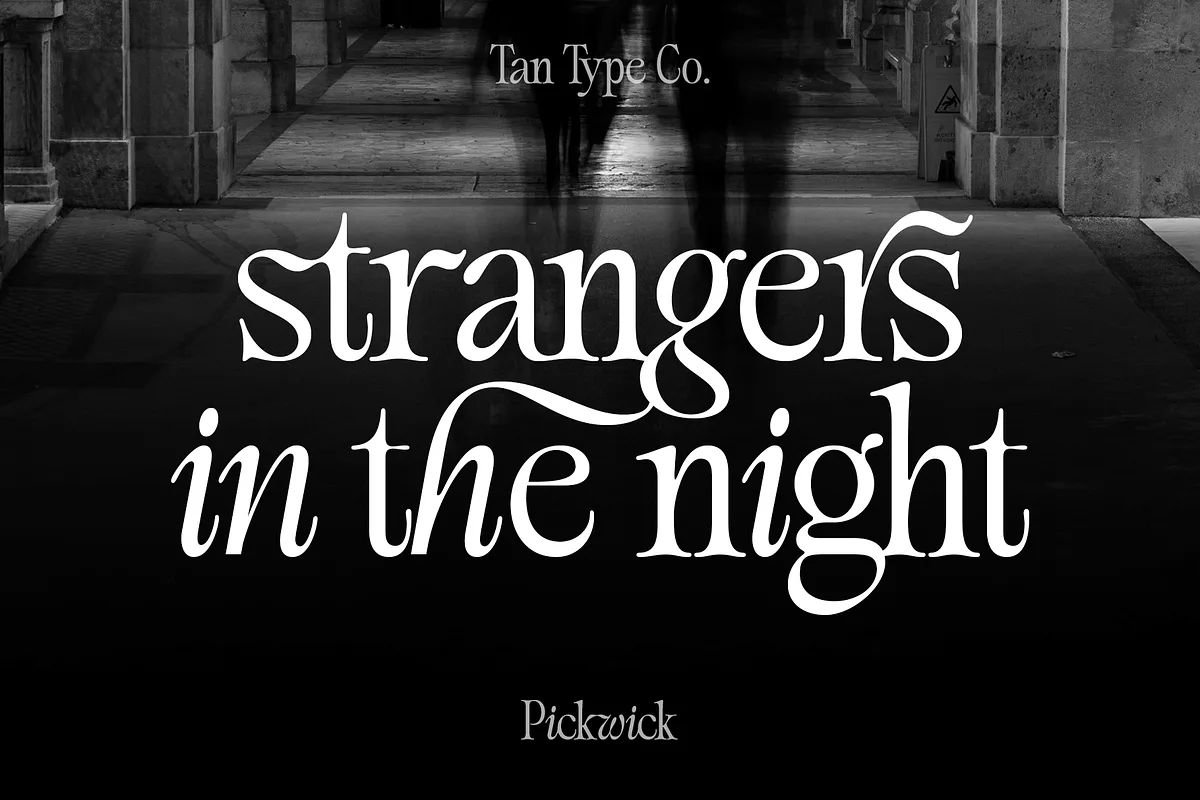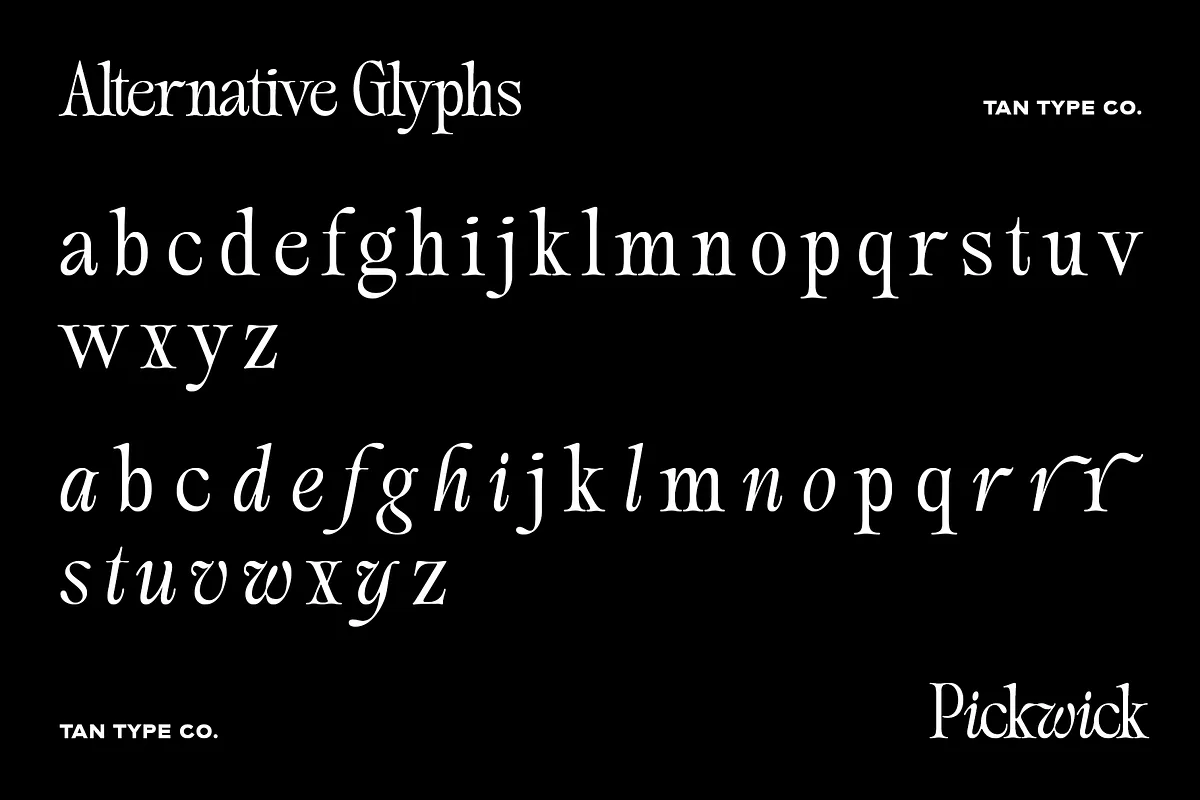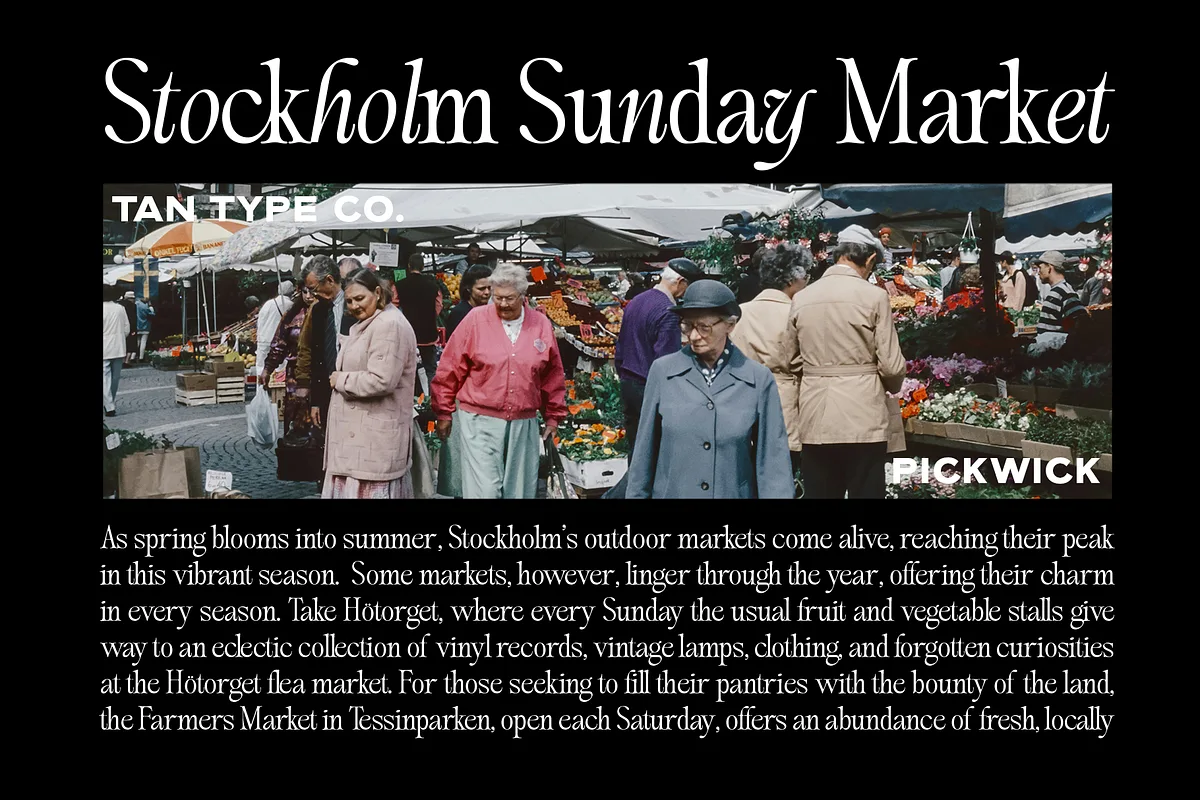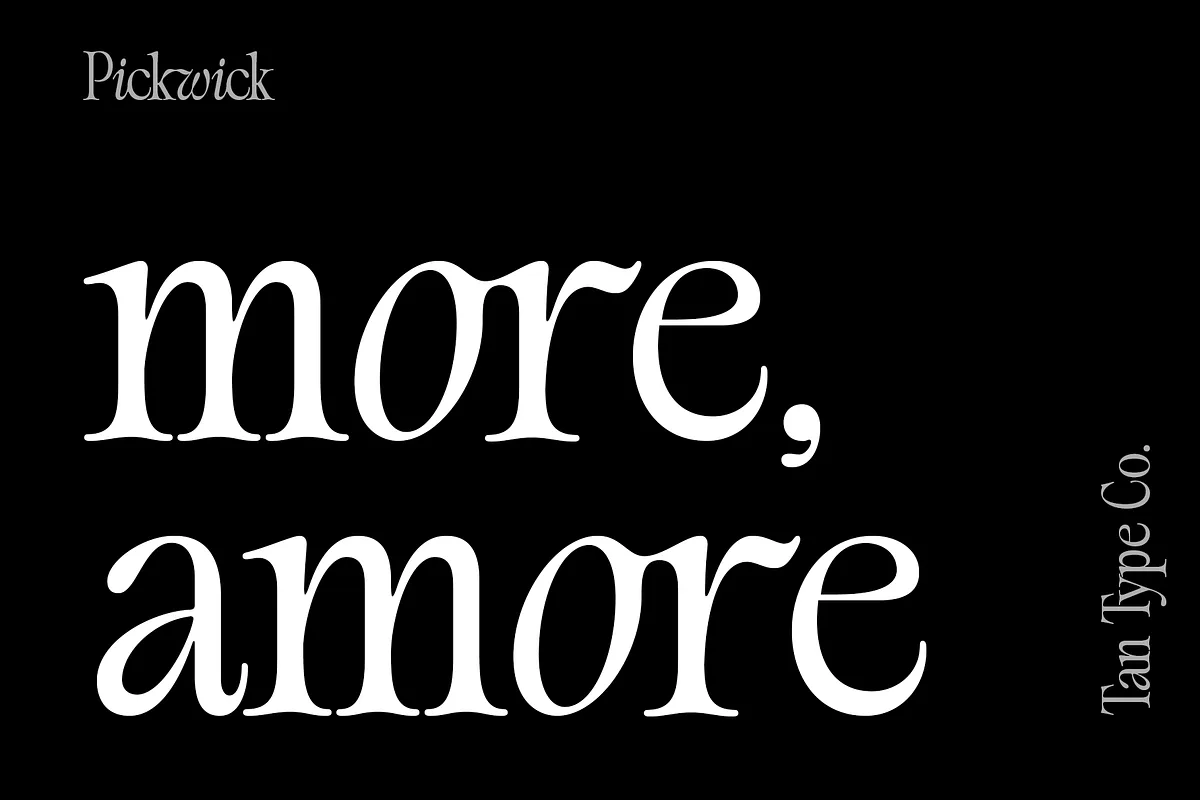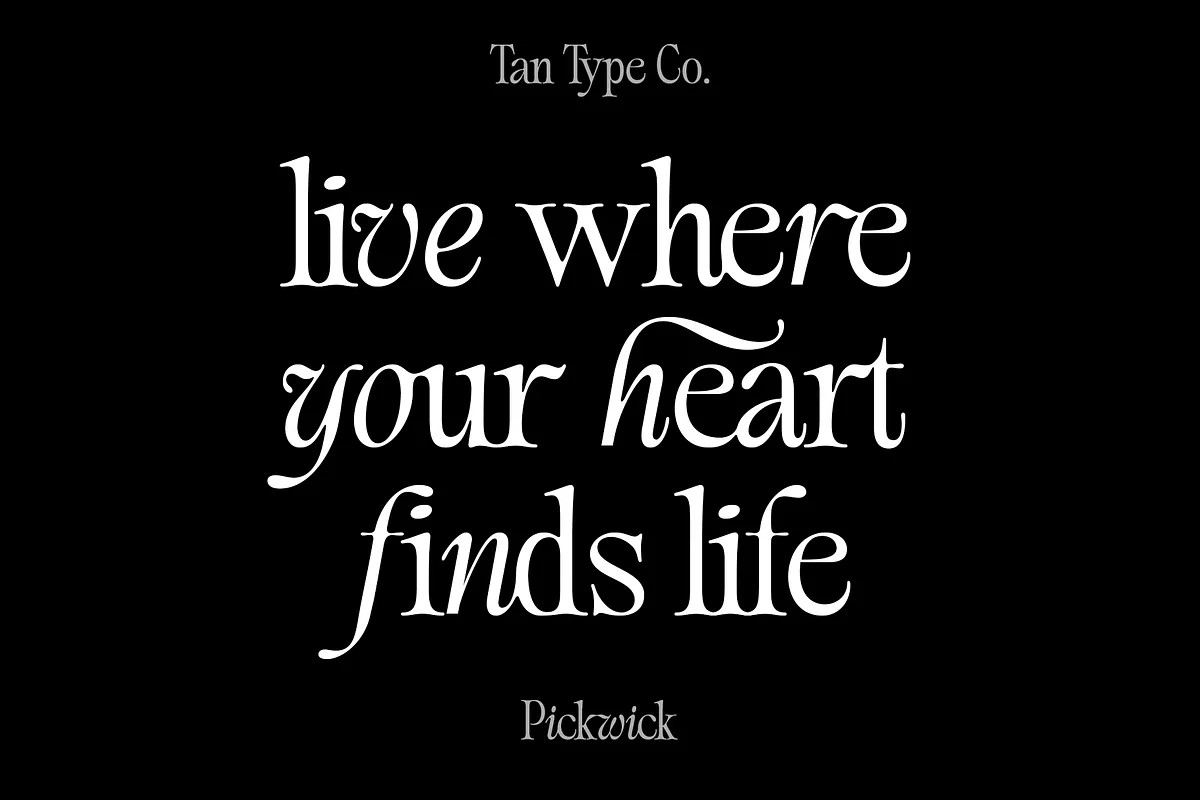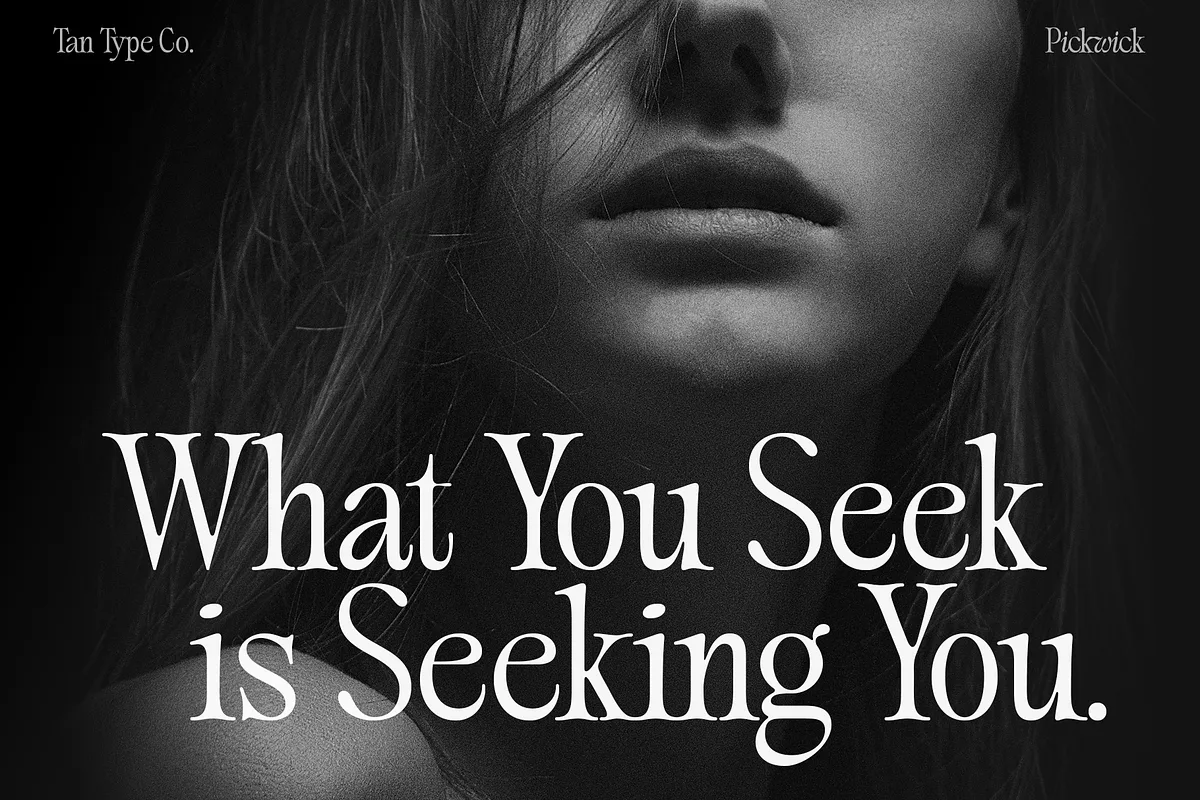
TAN PICKWICK is an elegant serif font that seamlessly blends classic sophistication with a contemporary twist. Drawing inspiration from traditional letterforms, it features gracefully elongated serifs and refined curves, while subtle modern touches—such as playful flourishes and unique angularities—add unexpected charm.
This balance between timeless tradition and innovation makes TAN-PICKWICK ideal for projects that demand prestige with a fresh, distinctive edge. Whether used for branding, editorial design, or invitations, TAN-PICKWICK conveys luxury and individuality, making it a standout choice for designs that are both refined and modern.
TAN PICKWICK Font: Elegant Serif